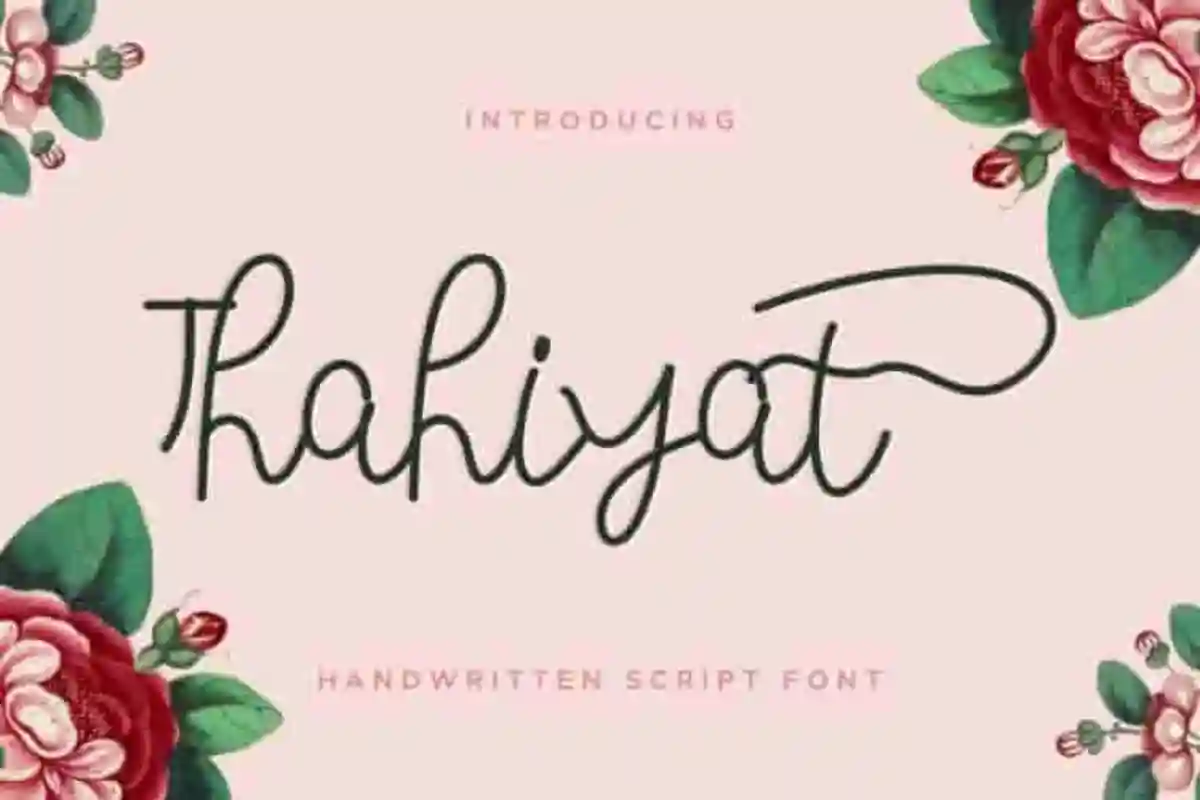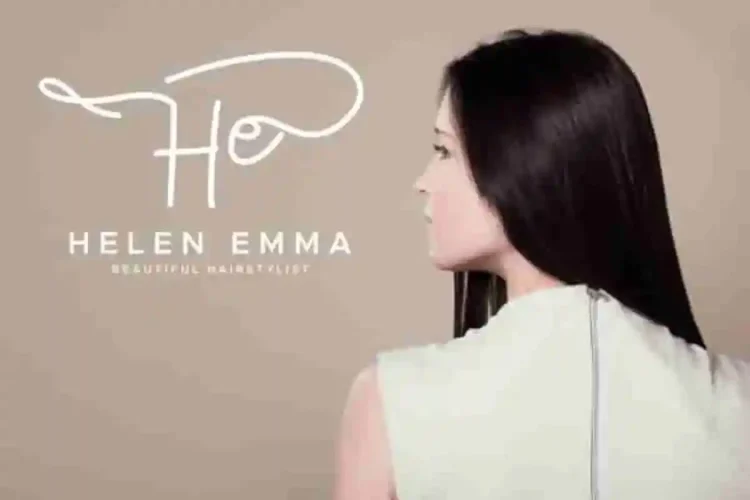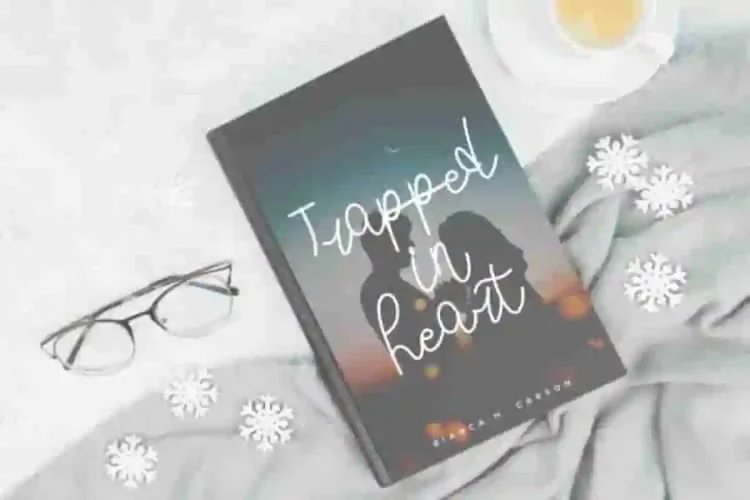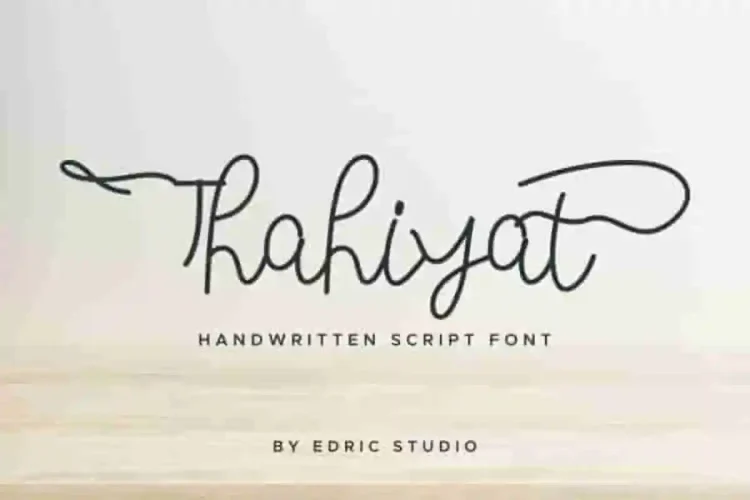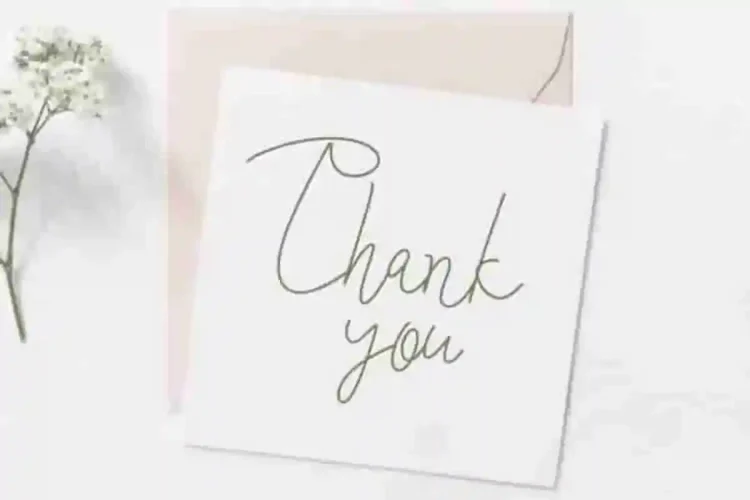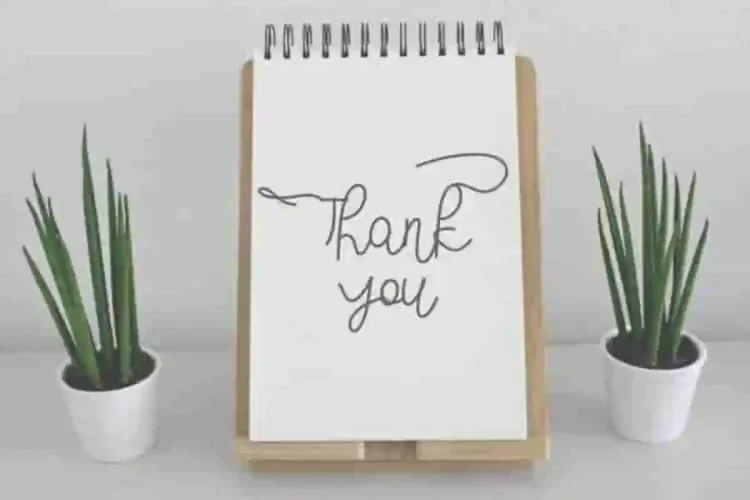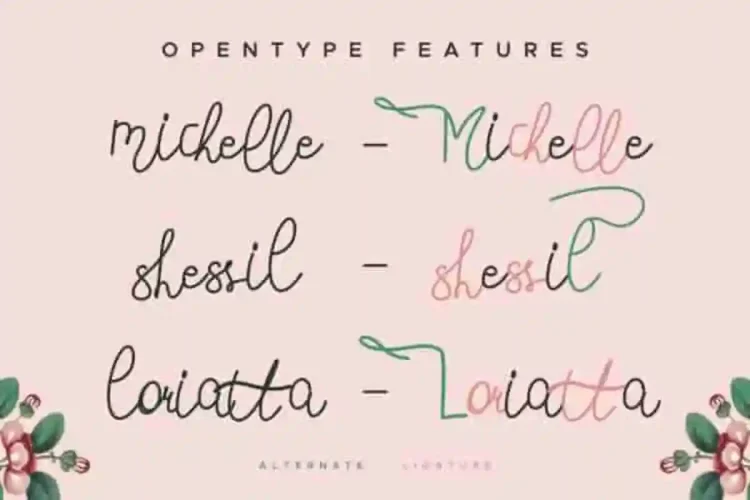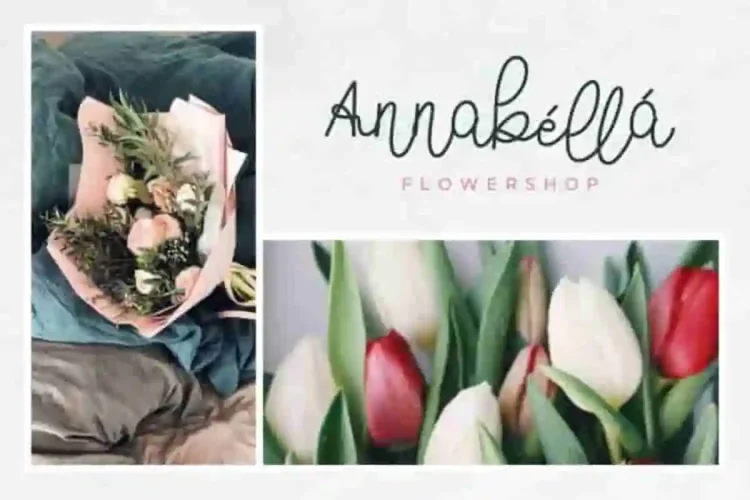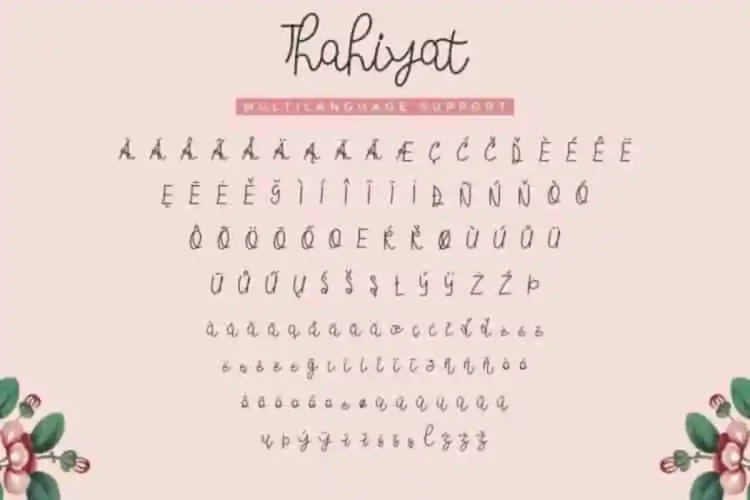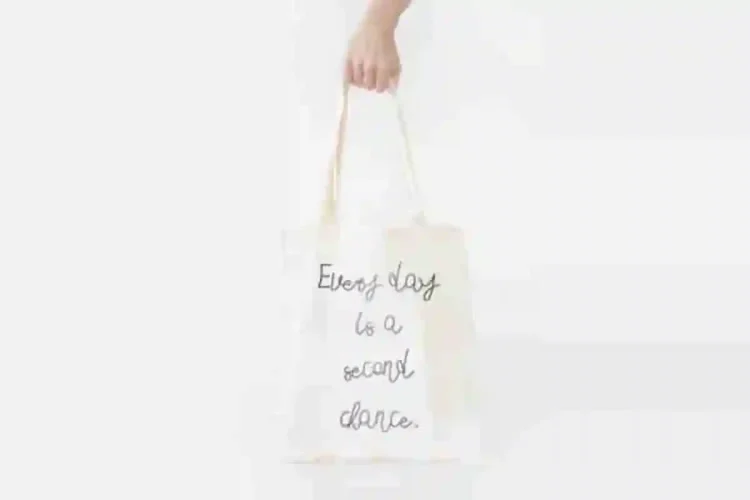
Thahiyat Calligraphy Script Font
Thahiyat Calligraphy Script Font is the newest font from our lovely artists : Yasri and Sarah. This typeface,  handcrafted from our Studio. Situated here in Garut and Bandung, Indonesia. Made with love and passion. :)
Thahiyat Calligraphy Script Font is an exclusive monoline calligraphy script. The typeface has a stunning characters set, perfectly kerned and spaced. It’s exclusive you wont find any where-else, the font like Thahiyat Calligraphy Script Font.
Thahiyat Calligraphy Script Font will be great for any projects including : branding, logo, stationery, business card, signage, flyer, brochure etc. Almost all industries will be match for this typeface: wedding, events, real estate, architect, law firm, florist, gardening, makeup artist, travel, hotel, musician etc.